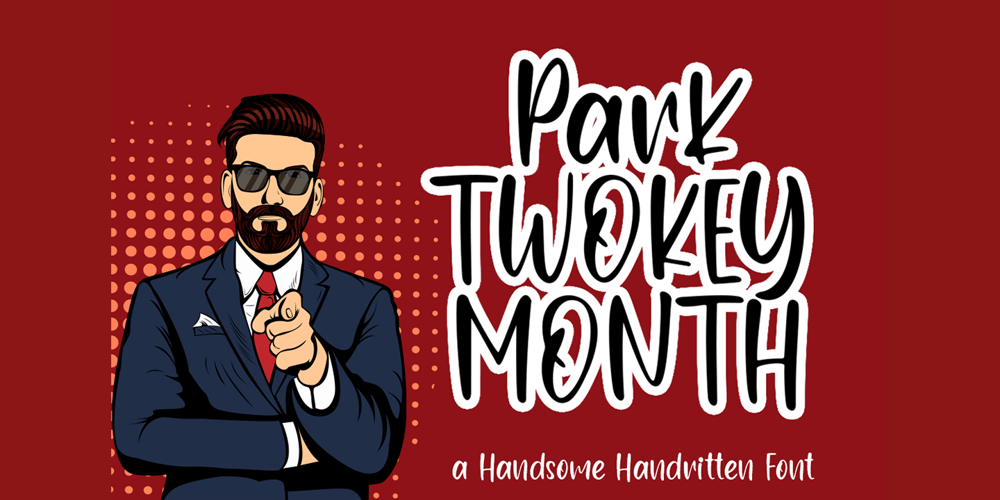
Twokeymonth Font Family was designed by Sarwo Edhi Prayitno and published by Haksen. Twokeymonth contains 1 styles and family package options. Twokeymonth is a A hand lettered font with quirky style. It is perfect for branding, signature, wedding invitation, promotion, product packaging, and other needs. You will get full set of lowercase and uppercase letters, numerals and punctuation, multilingual symbols that giving realistic hand-lettered style.Thanks and have a wonderful day,Haksen